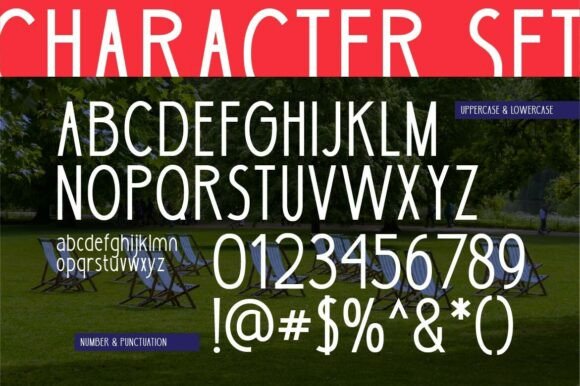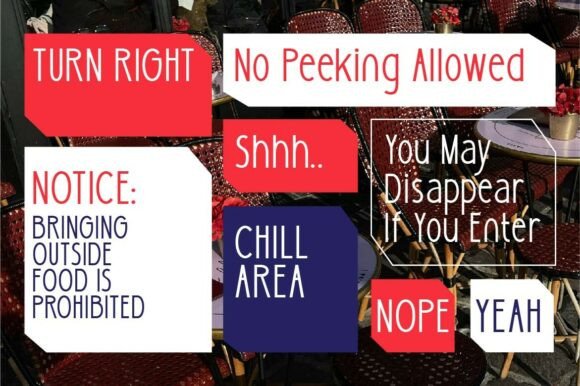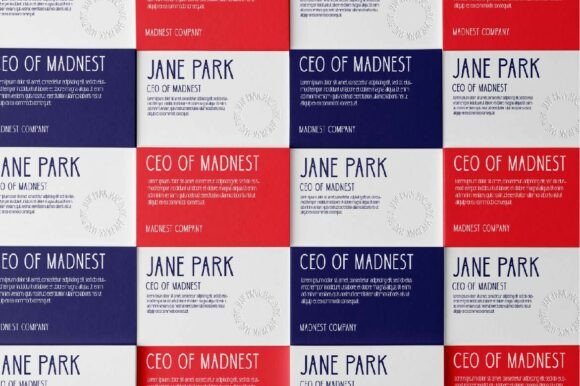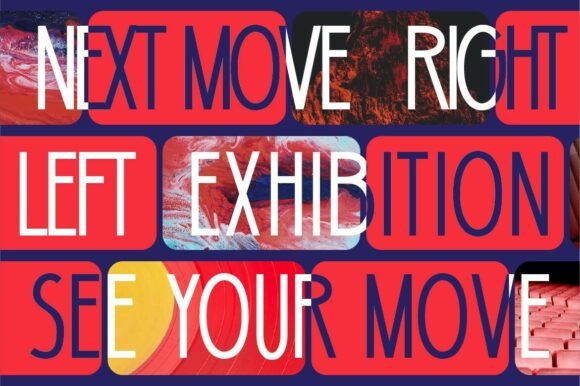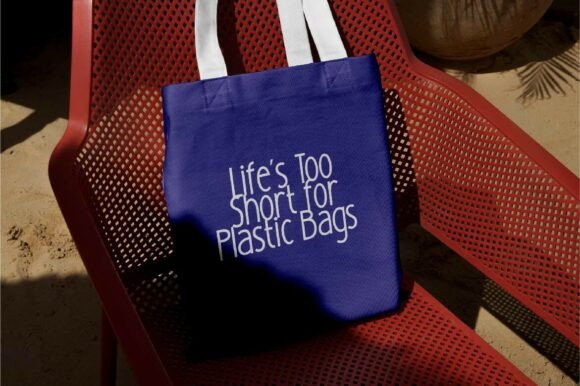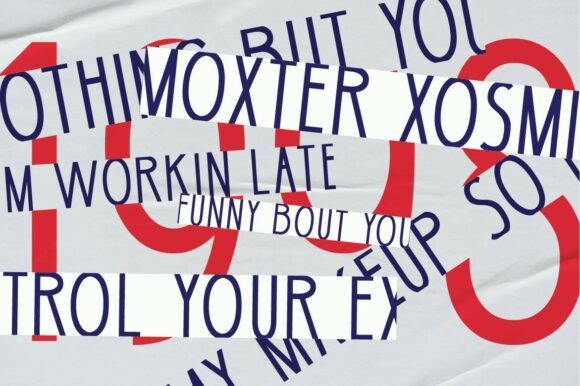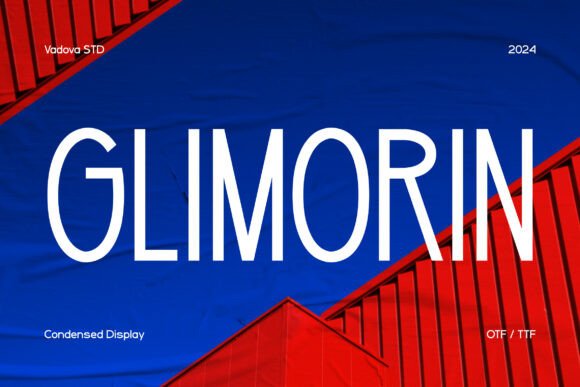
Introducing Glimorin Font: Elevate Your Design with Sophisticated Condensed Style
In the world of typography, fonts play a crucial role in conveying messages, evoking emotions, and creating lasting impressions. For designers and crafters seeking to make a bold statement, Glimorin Font is an exceptional choice. This sophisticated condensed display font is engineered to command attention, making it perfect for high-impact verticality in various design applications.
Ultra-Slim Proportions for Maximum Impact
Glimorin’s ultra-slim proportions are its defining feature, allowing it to thrive in environments where horizontal space is limited but visual presence is paramount. This font is meticulously crafted to make a significant impact without overwhelming the senses. Its slender lines and clean sans-serif design ensure that your message is conveyed with clarity and elegance, making it an ideal choice for projects where space is at a premium.
Versatile Applications for Glimorin Font
Glimorin’s versatility is one of its most compelling attributes. This font excels in a variety of applications, including:
- Cinematic Movie Posters: Add a touch of glamour and sophistication to your movie posters with Glimorin’s tall, commanding elegance.
- Architectural Branding: Elevate your architectural brand with a font that exudes modernity and sleekness.
- High-Fashion Editorial Headers: Make a statement with Glimorin’s clean lines and balanced geometry, perfect for high-fashion editorials.
- Modern Urban Signage: Glimorin’s sharp terminals and elegant design make it an excellent choice for signage that demands attention.
Design Characteristics of Glimorin Font
Glimorin’s design characteristics are what set it apart from other fonts. Its:
- Sharp Terminals: Add a touch of sophistication and elegance to your designs.
- Balanced Geometry: Ensure that your text is easy to read while maintaining a visually appealing aesthetic.
- Clean Sans-Serif Lines: Provide a modern and sleek look that complements a wide range of design styles.
Why Choose Glimorin Font?
When it comes to selecting a font for your design project, there are several reasons why Glimorin stands out:
- Unique Style: Glimorin’s condensed design and ultra-slim proportions make it a unique addition to any design project.
- High Versatility: Suitable for a wide range of applications, from movie posters to signage.
- Ease of Use: Glimorin’s clean lines and balanced geometry make it easy to read and work with.
Tips for Using Glimorin Font Effectively
To get the most out of Glimorin Font, consider the following tips:
- Use for Headings: Glimorin is perfect for headings and titles, where its condensed style and elegance can shine.
- Experiment with Sizes: Don’t be afraid to experiment with different sizes to maximize impact.
- Pair with Complementary Fonts: Combine Glimorin with complementary fonts to create visual interest and hierarchy in your designs.
Glimorin Font is a powerful tool for designers and crafters looking to add a touch of sophistication and elegance to their projects. Its unique blend of ultra-slim proportions, clean sans-serif lines, and sharp terminals makes it an excellent choice for a wide range of applications. Whether you’re working on cinematic movie posters, architectural branding, high-fashion editorial headers, or modern urban signage, Glimorin is sure to command the spotlight.